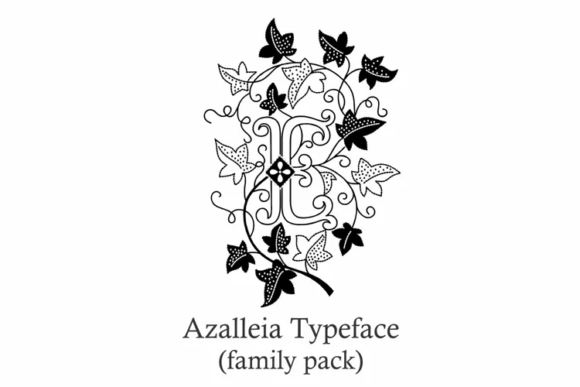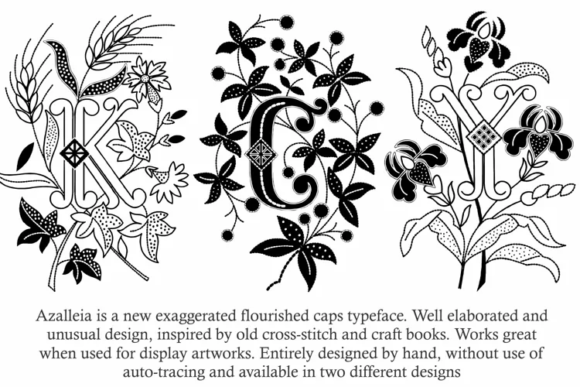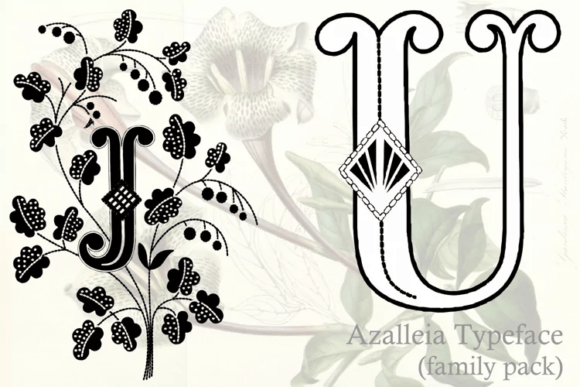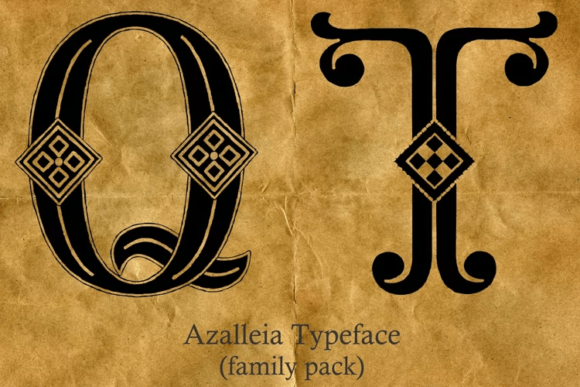
Azalleia Typeface Family Pack Font
About the Azalleia Typeface Family Pack Font
Get ready to be inspired by Azalleia Typeface Family Pack Font, a fresh and dynamic typeface for modern creators. Azalleia is a new exaggerated flourished caps typeface. Well elaborated and unusual design, inspired by old cross-stitch and craft books. Works great when used for display artworks. Entirely designed by hand, without use of auto-tracing and available in two different designs.
Azalleia’s bold, handcrafted aesthetic makes it ideal for headlines, short impactful statements, logos, and packaging designs requiring a touch of vintage charm. Its highly decorative nature, however, limits its use in body text or UI elements where readability is paramount. Long paragraphs set in Azalleia would be visually overwhelming and difficult to read.
The font’s playful yet sophisticated personality pairs well with clean sans-serif fonts like Futura or Helvetica for a balanced contrast. For a more vintage-inspired feel, consider pairing it with a classic serif like Garamond or a slightly more playful script font such as Playfair Display. Avoid pairing it with other highly decorative fonts to prevent visual clutter.
Azalleia is best suited for brands aiming for a handcrafted, nostalgic, or slightly whimsical image. Think artisanal food products, boutique clothing lines, or craft-focused businesses. Its unique character adds a distinctive visual element to projects that need a touch of hand-made authenticity.
Azalleia Typeface Family Pack Font Usage Examples
Azalleia Typeface Family Pack Font Example